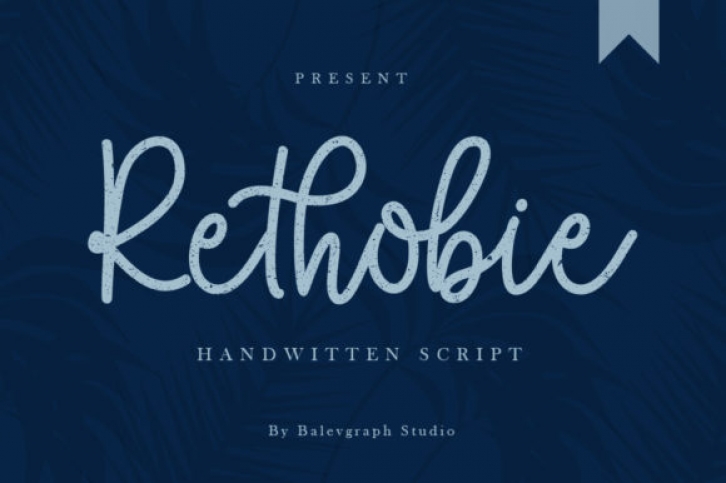
Rethobie is a unique and distinct handwriting font.
It would look perfect on photography, watermark, social media posts, advertisements, logos & branding, invitation, product designs or anything that needs a personalized taste.